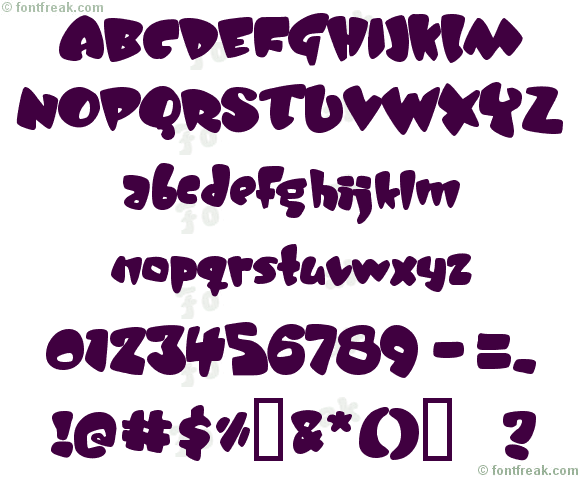
JellyBelly
About Jelly Belly
The Jelly Belly font by Pizzadude is a delightful display typeface that embodies a playful and whimsical character, making it an ideal choice for projects that require a touch of fun and creativity. This font is characterized by its rounded, soft edges and generous spacing, which contribute to its approachable and friendly appearance. The stroke weight is consistent, providing a harmonious balance that enhances readability while retaining a decorative flair. Its bouncy, jelly-like forms give the impression of movement, making it visually appealing for a variety of applications.
Jelly Belly shines in contexts where joy and light-heartedness are essential. It is perfect for designing vibrant wedding invitations that need a personal touch or crafting eye-catching movie posters that capture the essence of family-friendly films. Restaurant menus can benefit from its playful charm, enticing diners with a sense of fun, while social media graphics will stand out with its unique, cheerful aesthetic. This font is especially suited for graphic designers, small business owners, and content creators looking to add a memorable element to their visual communications.